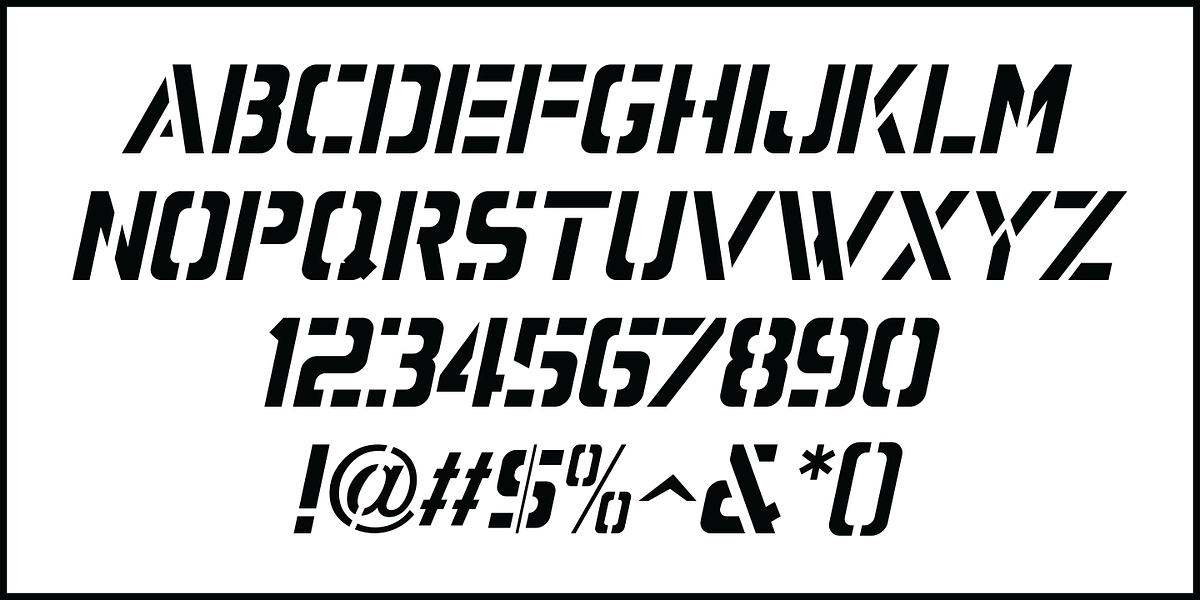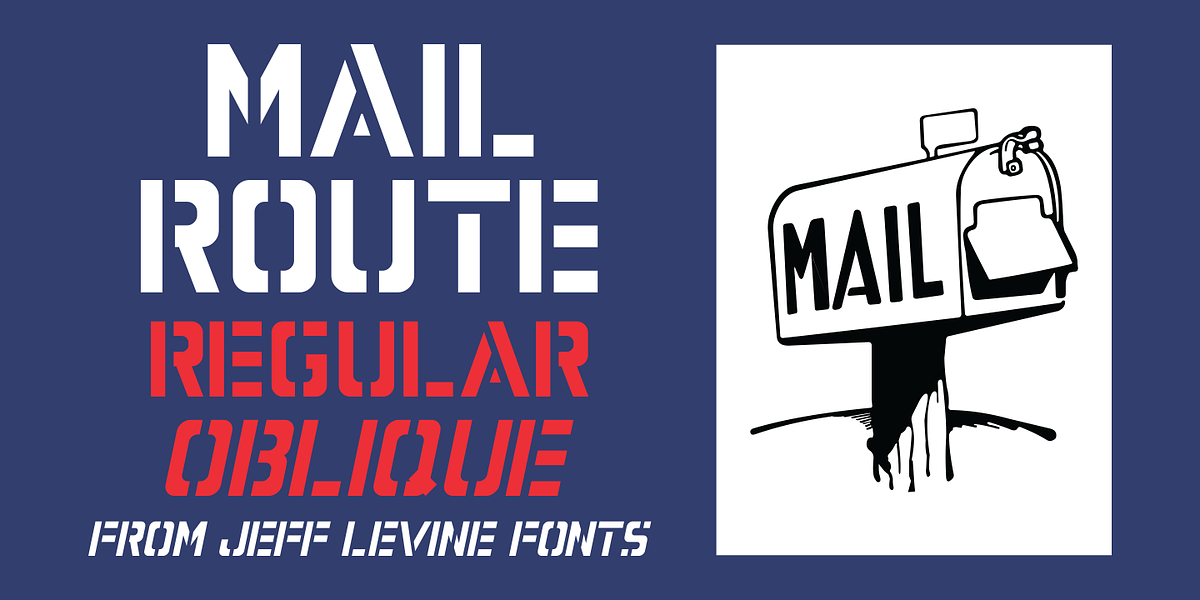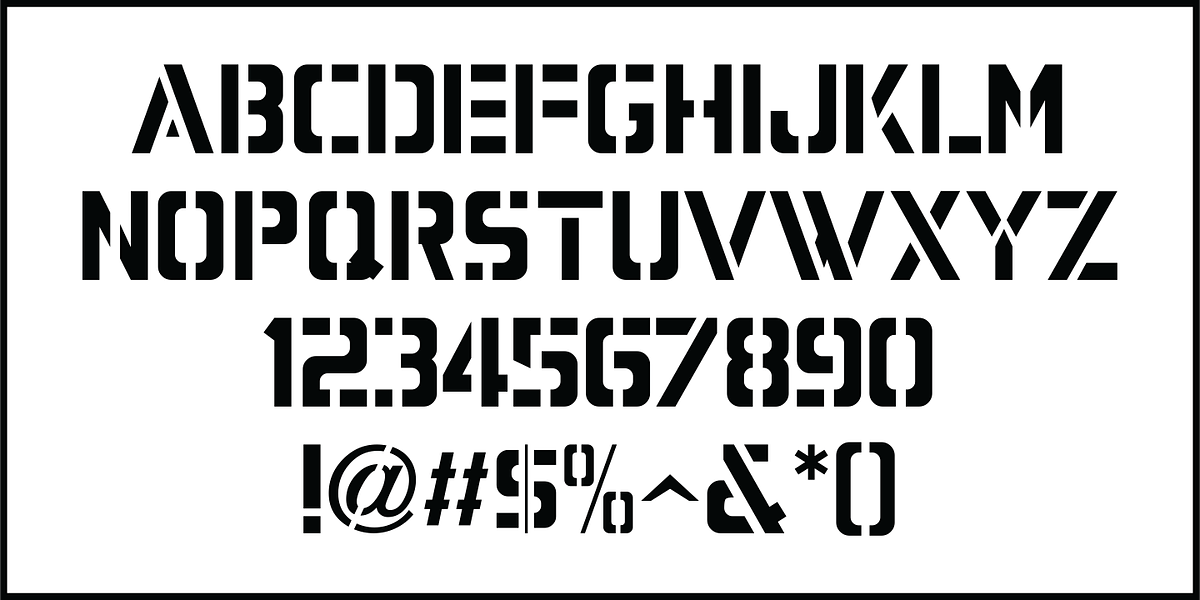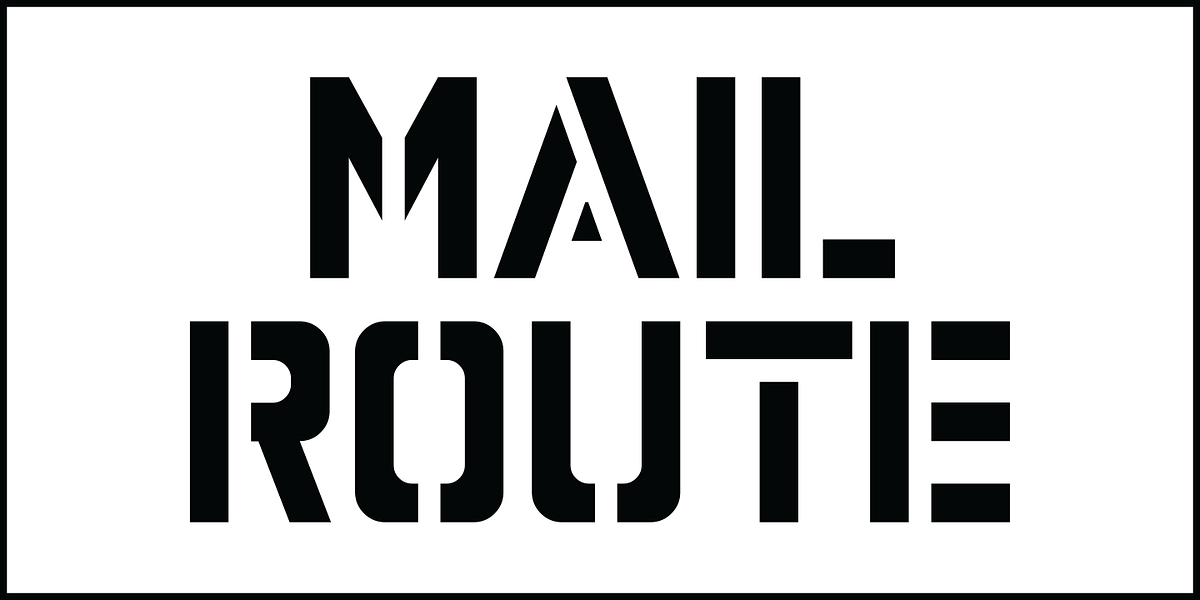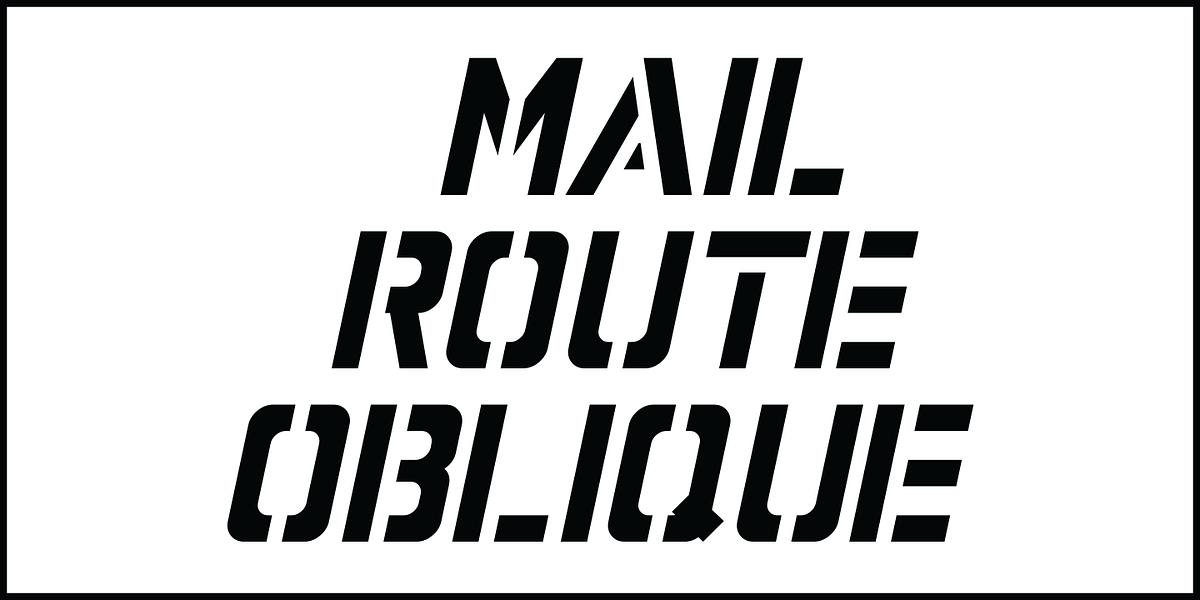
Mail Route JNL
It’s not often a vintage cartoon can inspire a type design, but such is the case when the name “Daffy Duck” is hand lettered on a mailbox in the 1946 Warner Brothers cartoon “The Great Piggy Bank Robbery” (famously being a send-up of the popular Dick Tracy comic strip by Chester Gould).
Mail Route JNL is available in both regular and oblique versions.